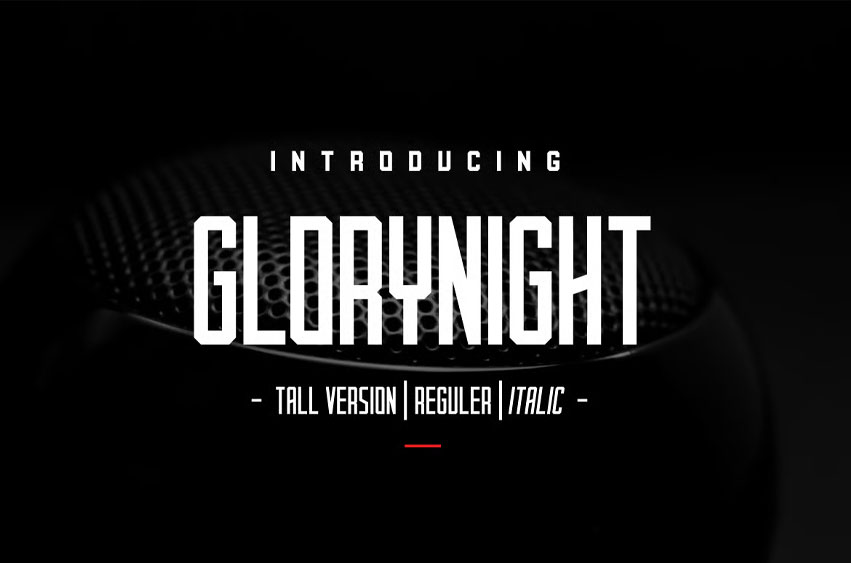
Glorynight Tall Version Font
Glorynight Tall Version Font is a Display Sans font ( reguler and italic ). Made with the principle of octagonal form. It look manly, classy and strong. Suitable for any design needs : technological, sport, fashion, modern branding, modern advertising, print identity, magazine, website, mobile application and more.
Glorynight Tall Version ( .otf and .ttf ) typeface comes with Uppercase and Lowercase, Punctuation, Numerals. Includes a range of multilingual support.